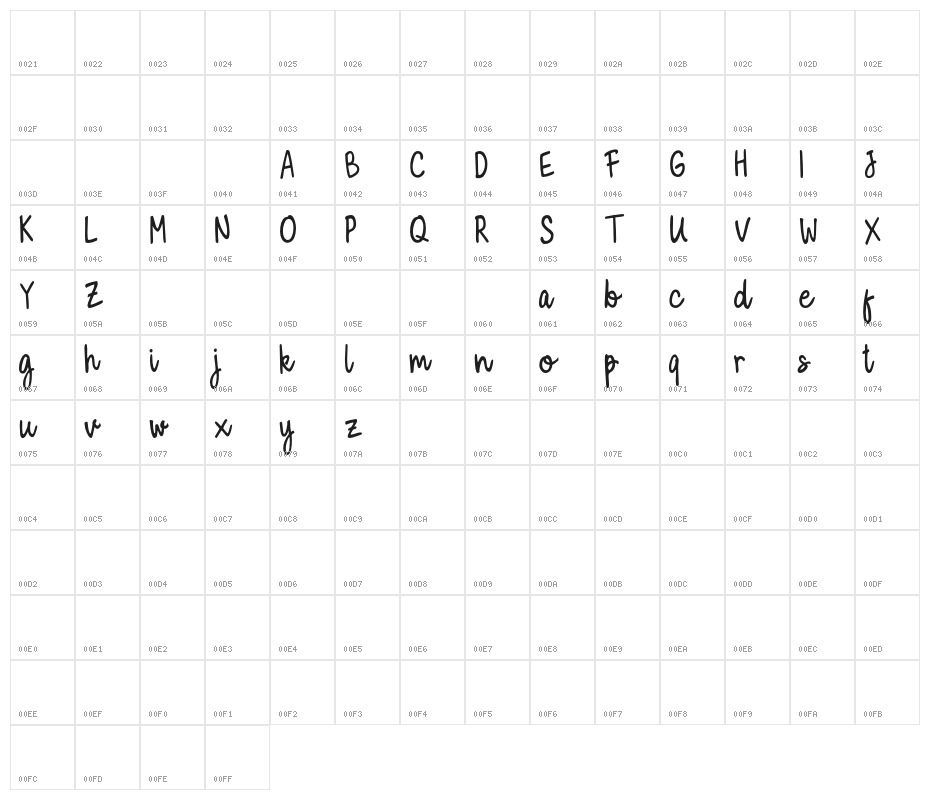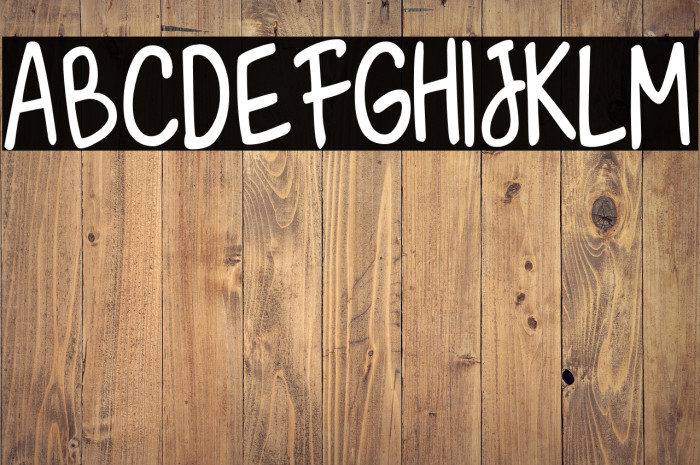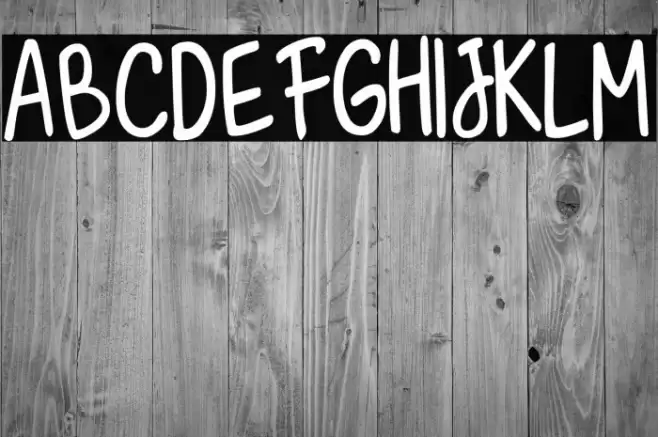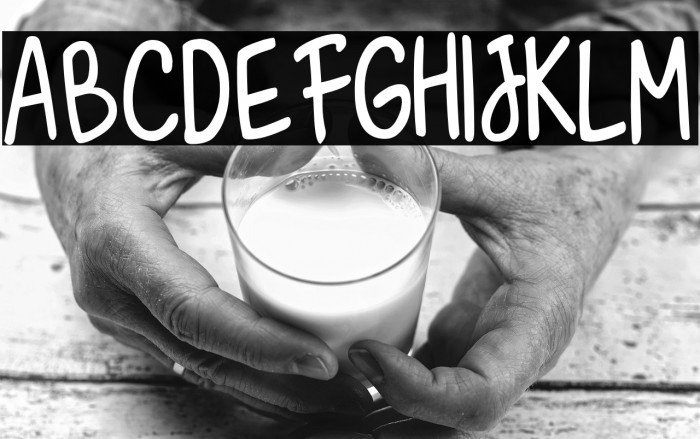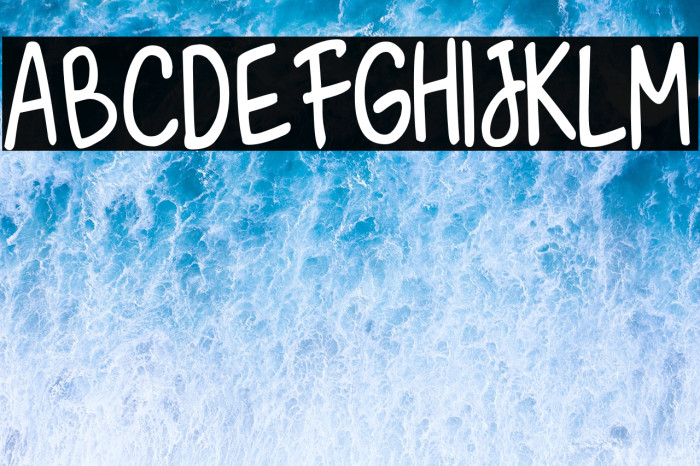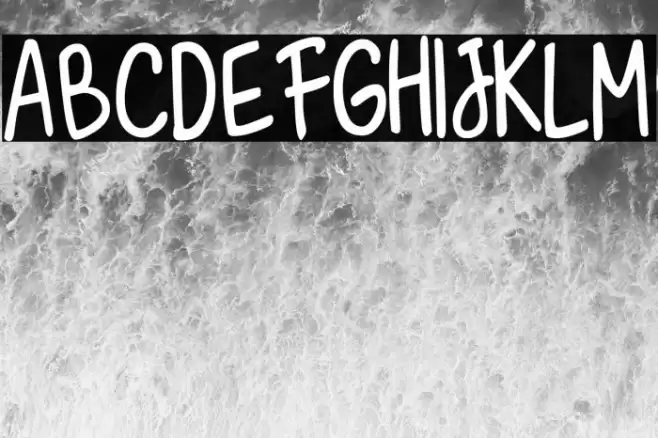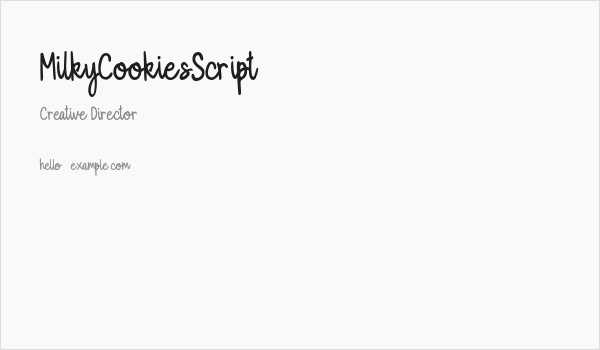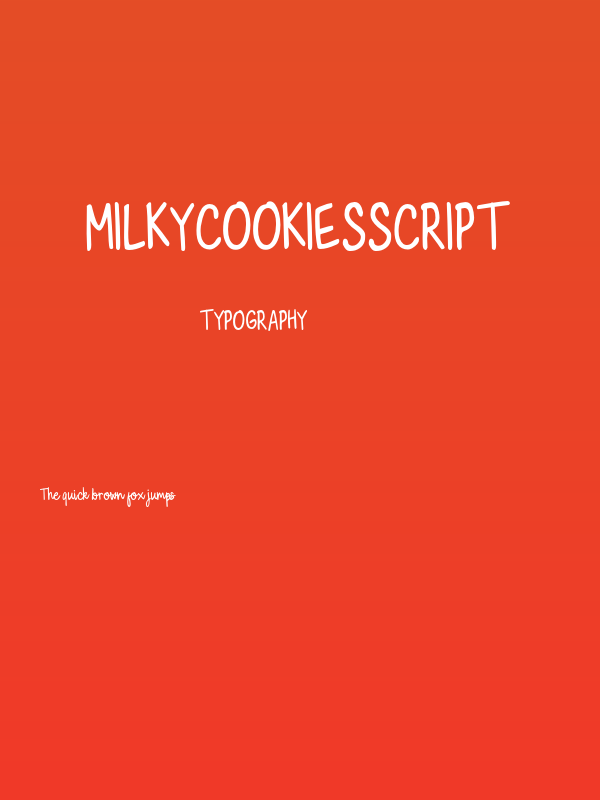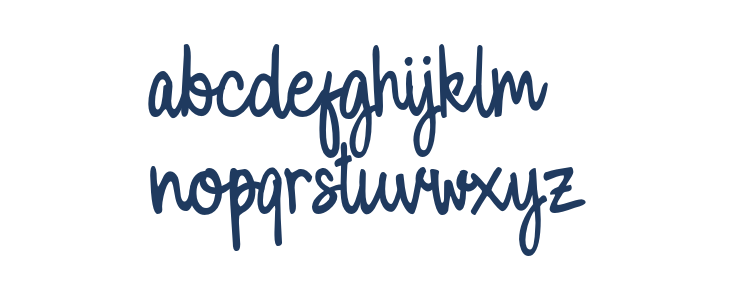
MilkyCookiesScript Font
MilkyCookiesScript Description
This playful and whimsical script font features a handwritten style with a casual and friendly appearance. The letters are slightly slanted, with a smooth flow and rounded edges that give it a warm and inviting feel. The uppercase letters are bold and prominent, while the lowercase letters maintain a consistent flow, enhancing the font's readability. The strokes are uniform in thickness, contributing to a cohesive look. This font is perfect for projects that require a personal touch, such as greeting cards, invitations, or playful branding.
| Proposed Projects | Ideal for greeting cards, invitations, playful branding, and personal projects. |